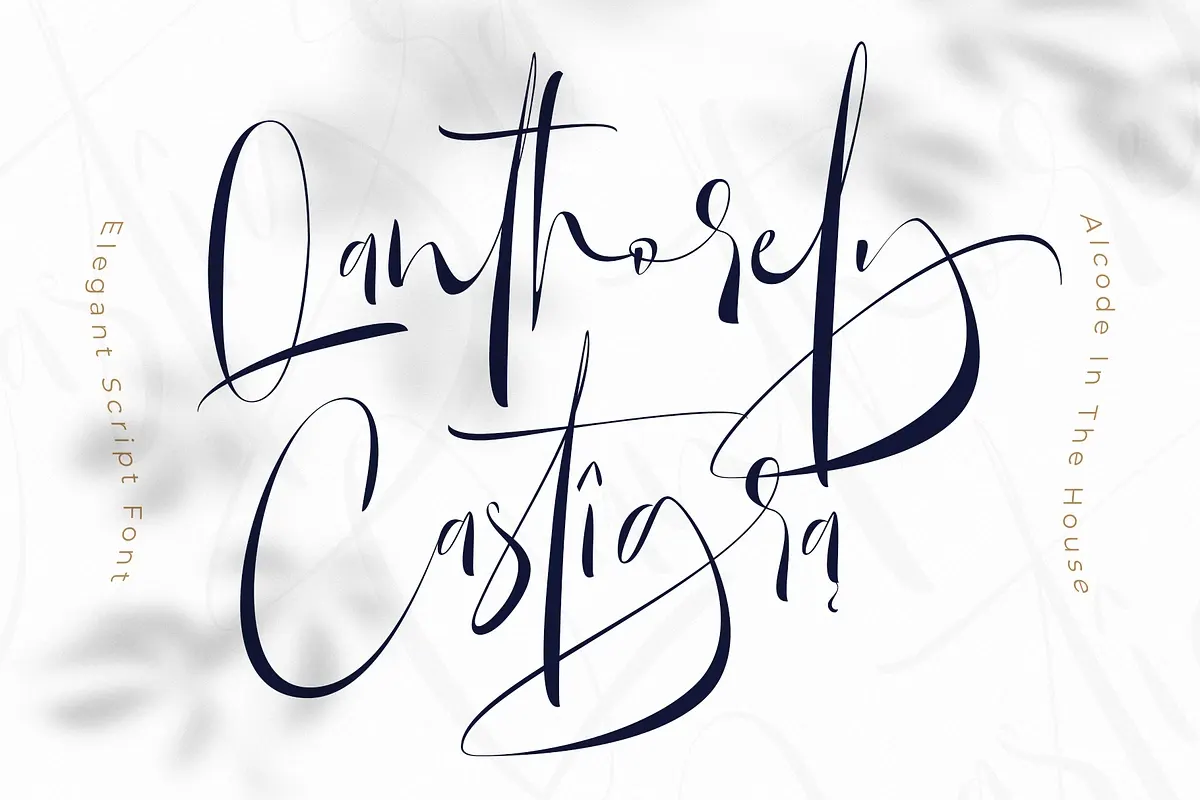
Qanthorely Castigra Font Free Download is a unique and elegant typeface that brings sophistication and character to your designs. With its refined letterforms, graceful curves, and distinctive style, this font is perfect for upscale branding, wedding invitations, editorial layouts, packaging, and logos that require a luxurious and professional touch.
Whether you’re designing a luxury brand, crafting a romantic invitation, or creating a polished editorial spread, Qanthorely Castigra delivers elegance, clarity, and a sense of exclusivity to your typography. It’s the ideal font for designers seeking a blend of modern sophistication and classic refinement.